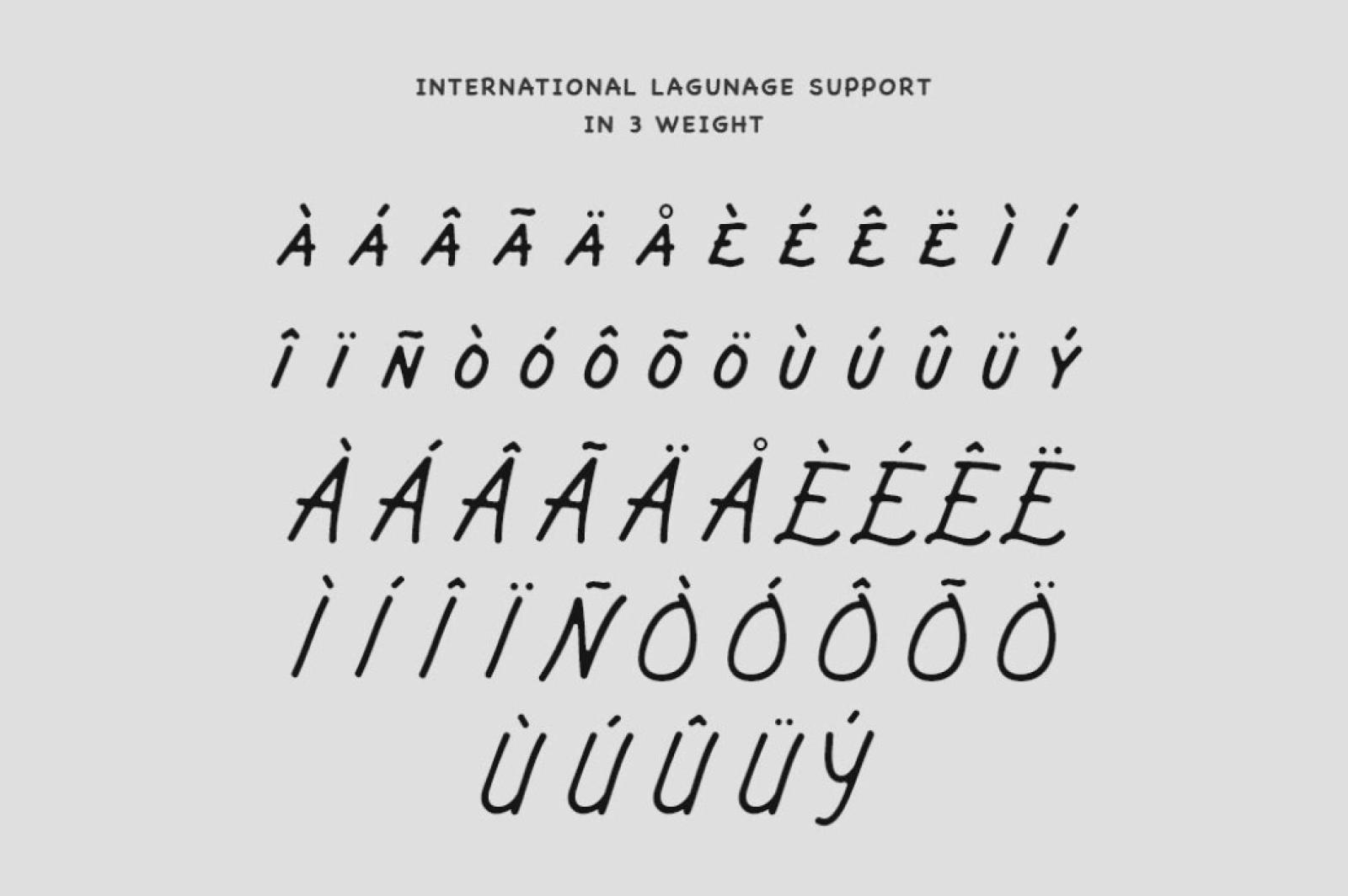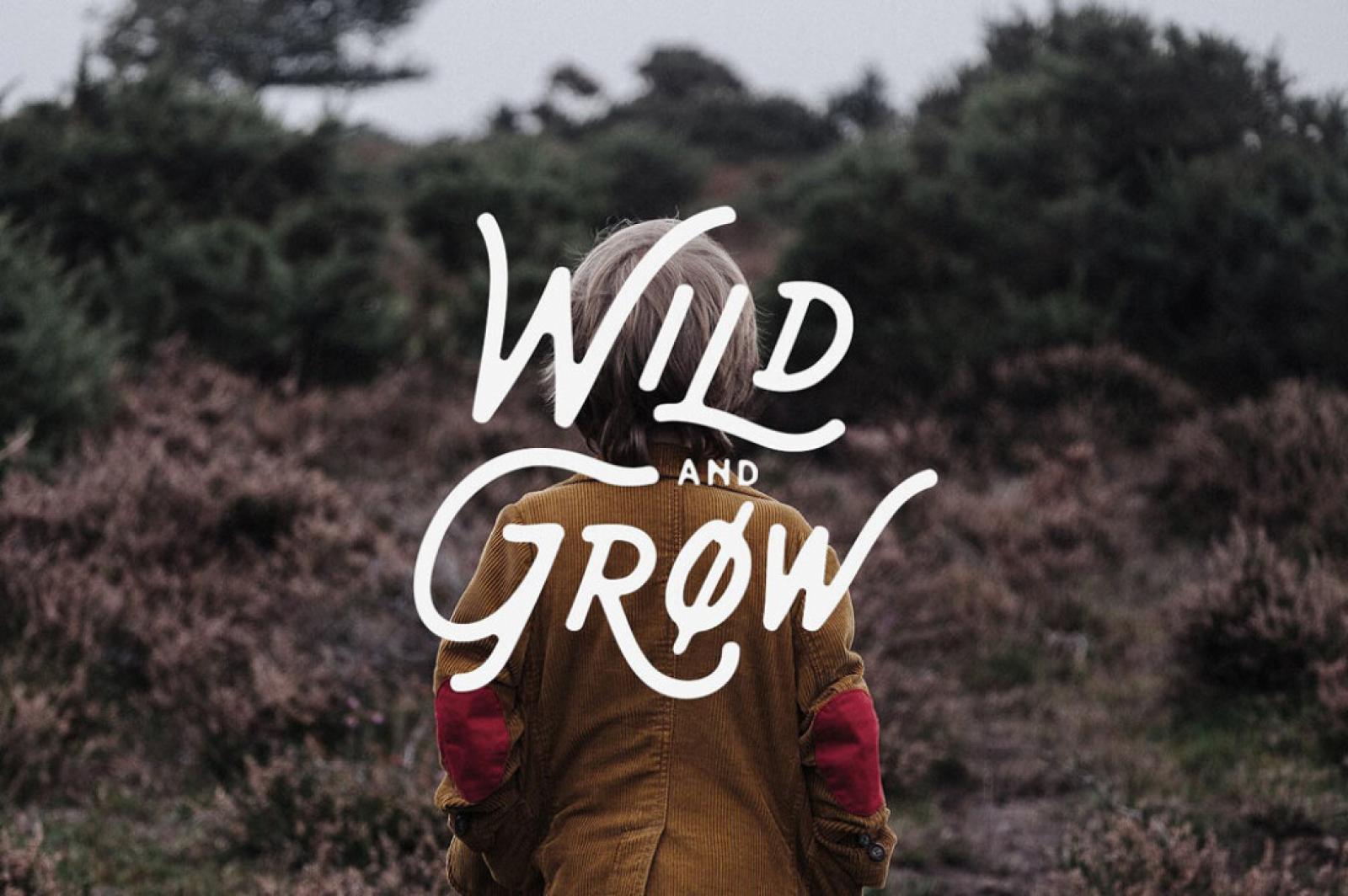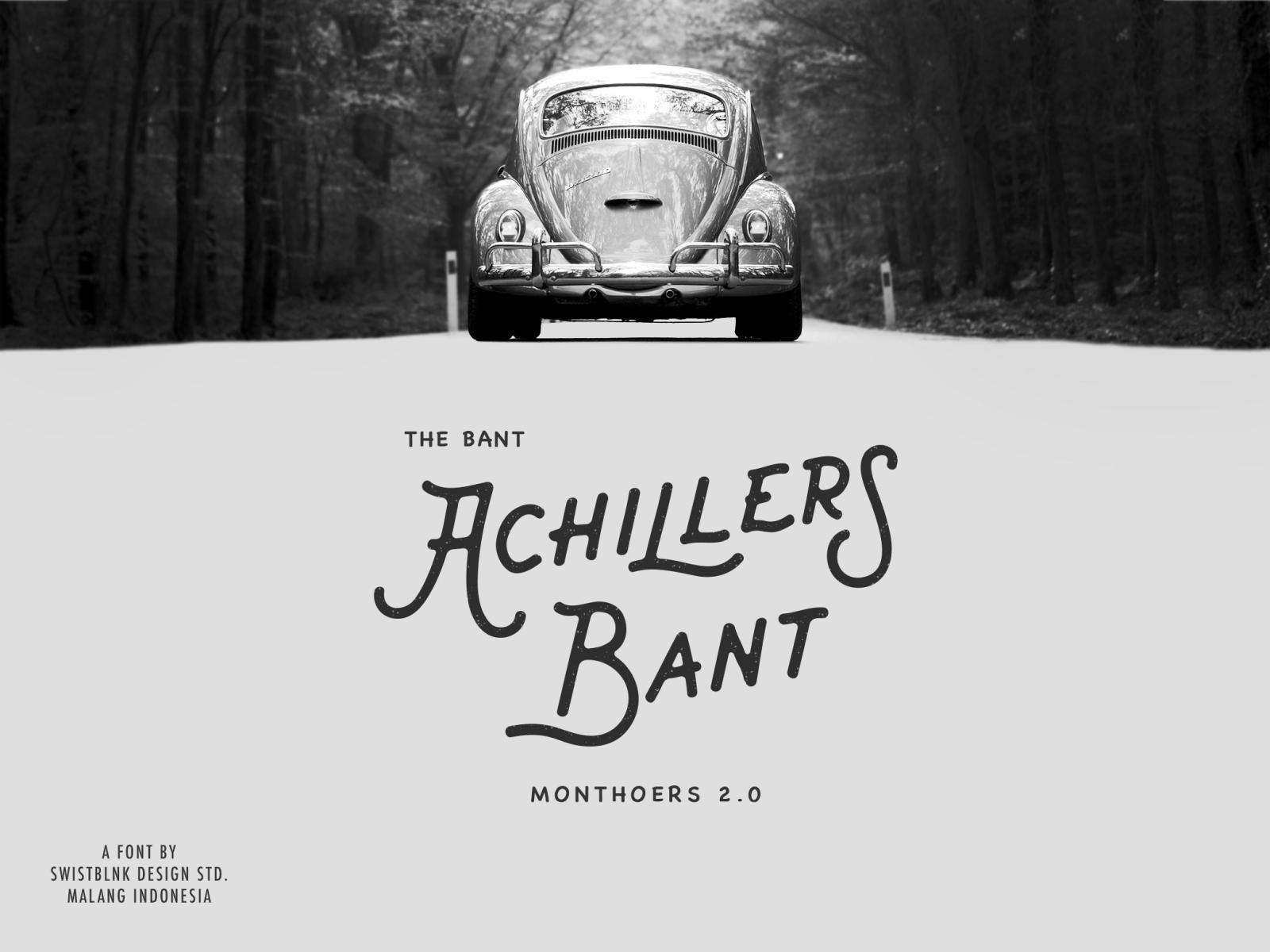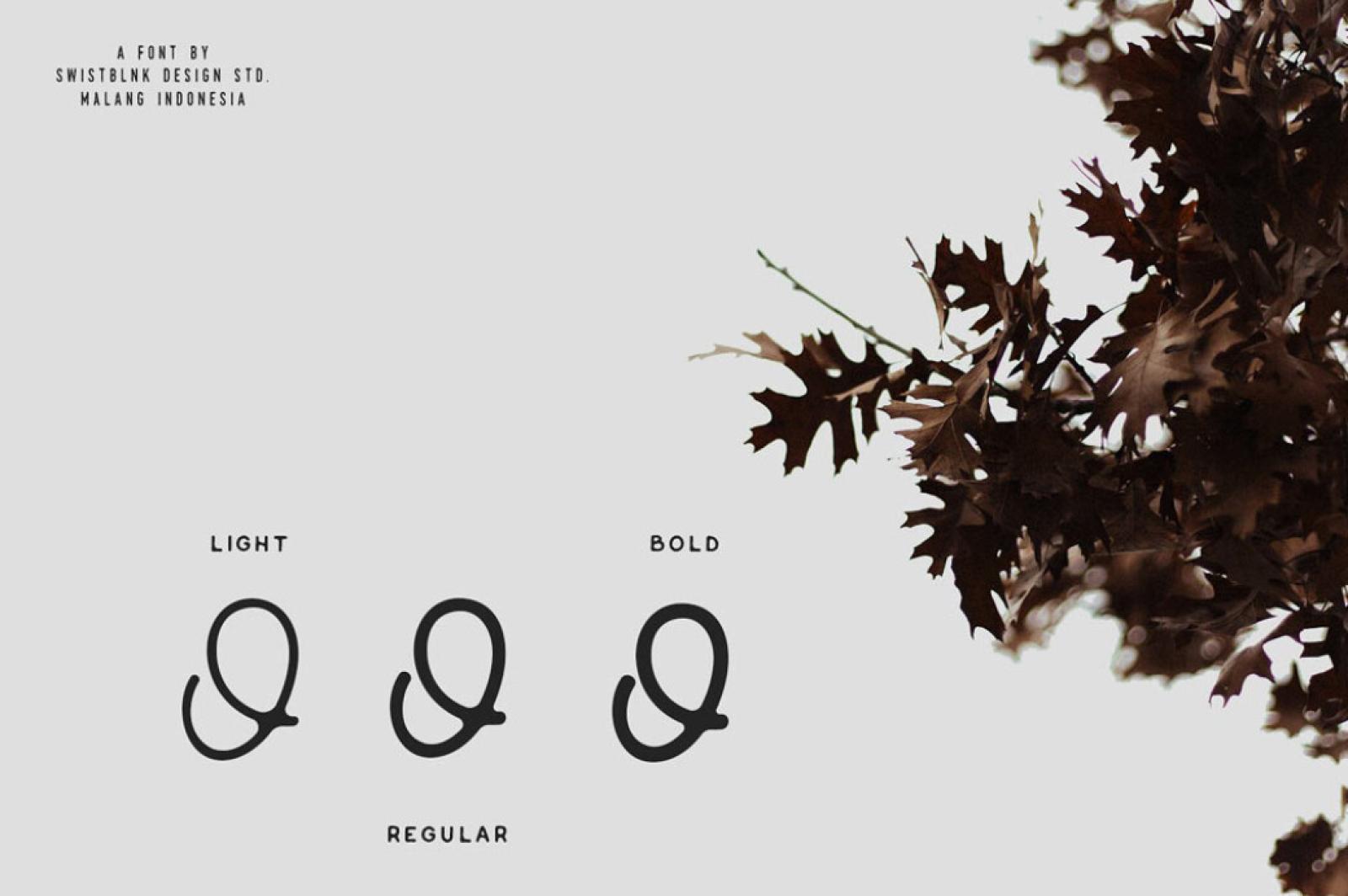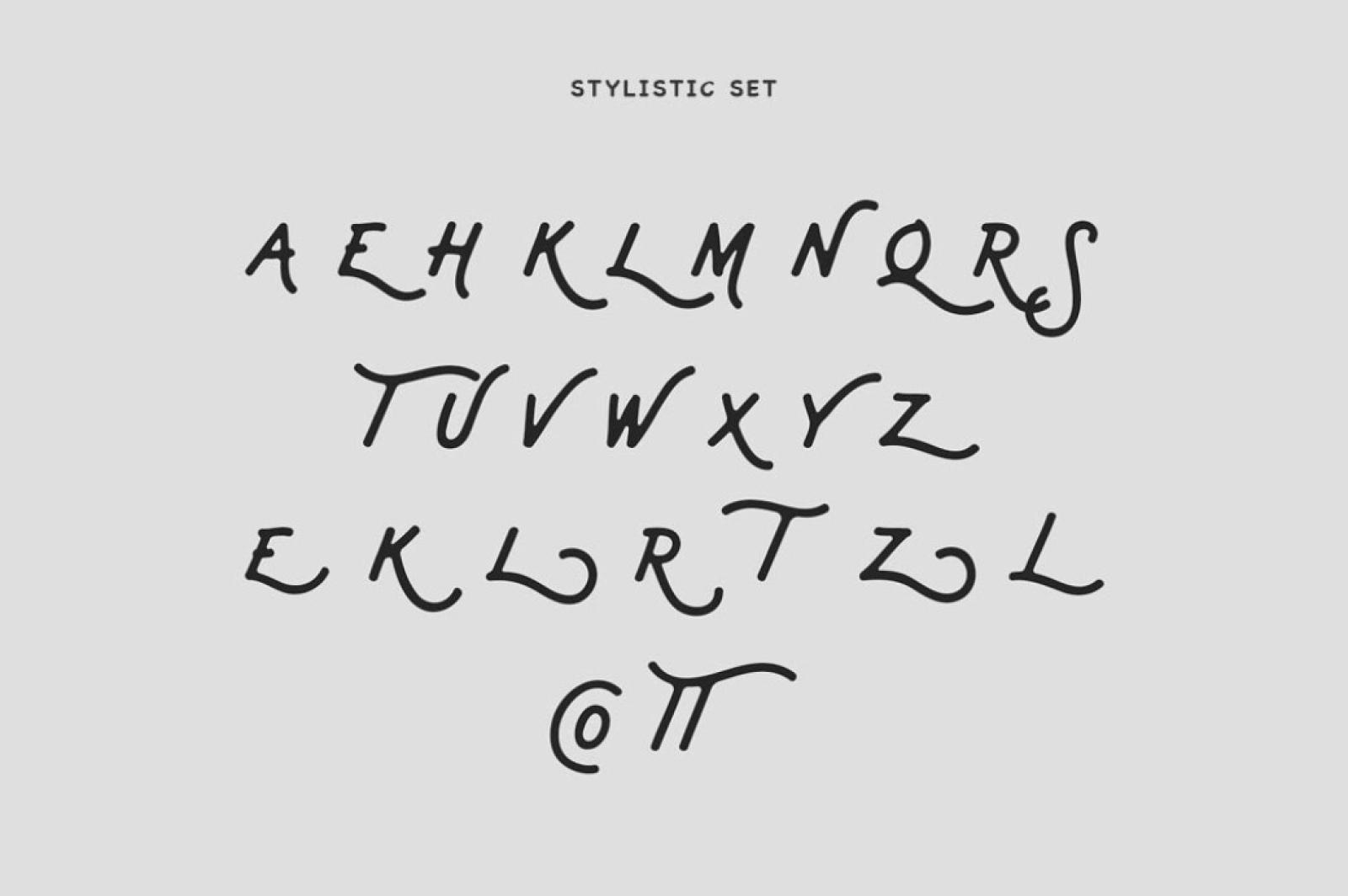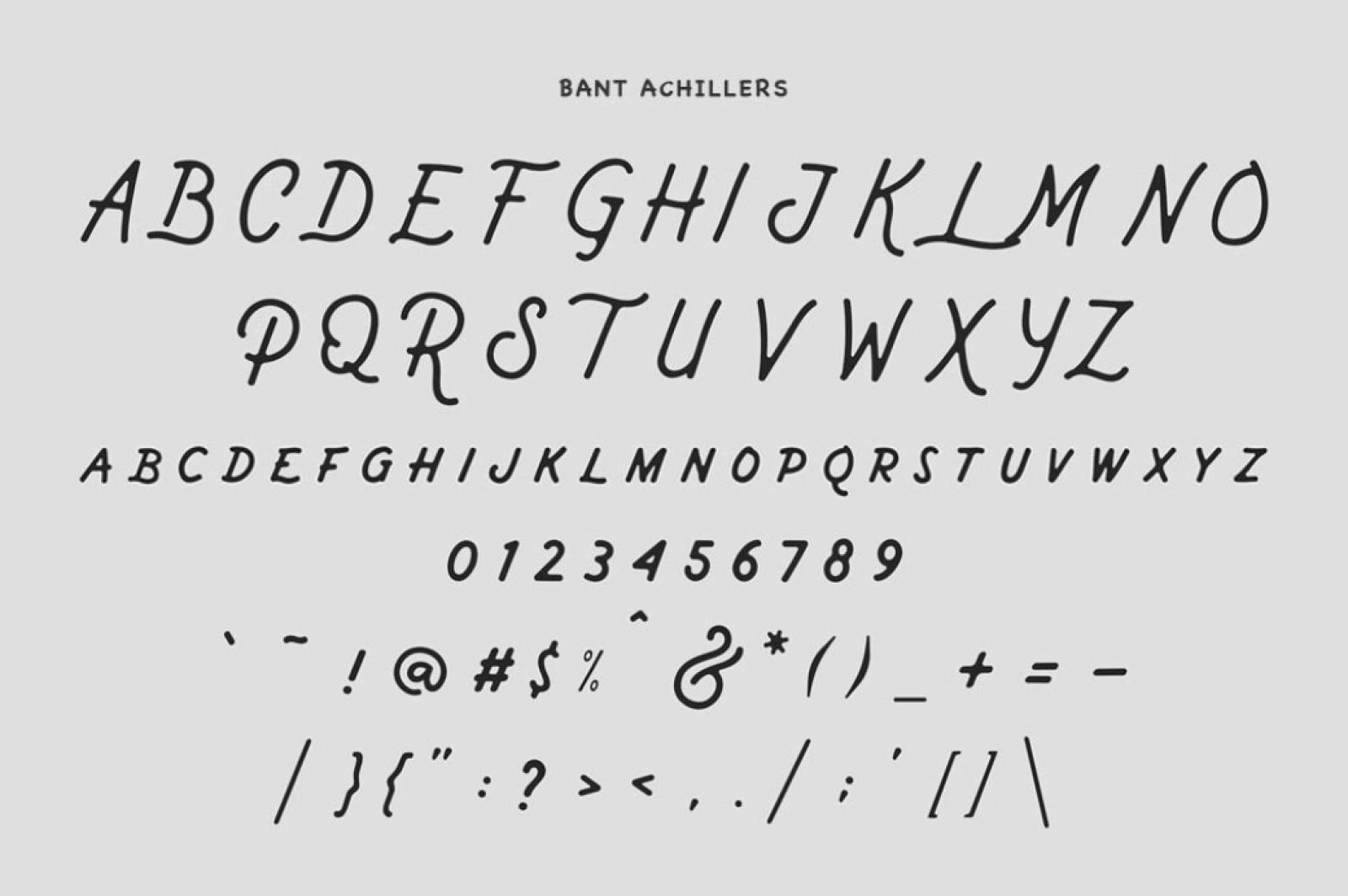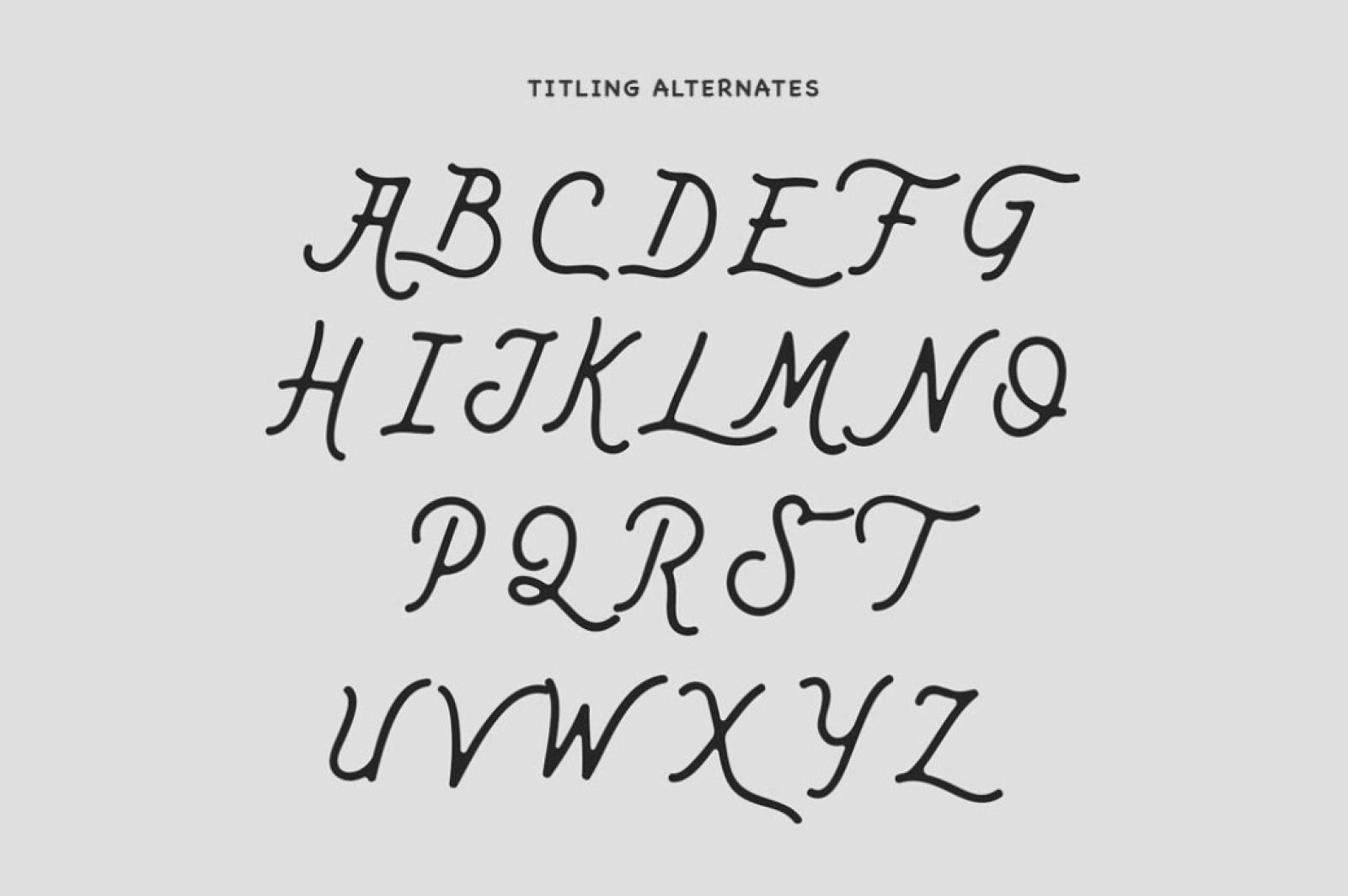
Bant Achillers Script Typeface
All the beauty and attractiveness of the vintage trends was covered by a script typeface, living and breathing your creative aspirations and victories. Cover all your needs with a single click!
As a beautiful match to photos, t-shirts, cards and even logo, Bant Achillers turns into a silver bullet when its a case of complicated choice. With tons of beautiful alternate characters, multilingual support and a full set of punctuation symbols it risks to top your premium fonts library and using it will be pure bliss, we know already. So why should you resist or stop yourself you want it here and now?